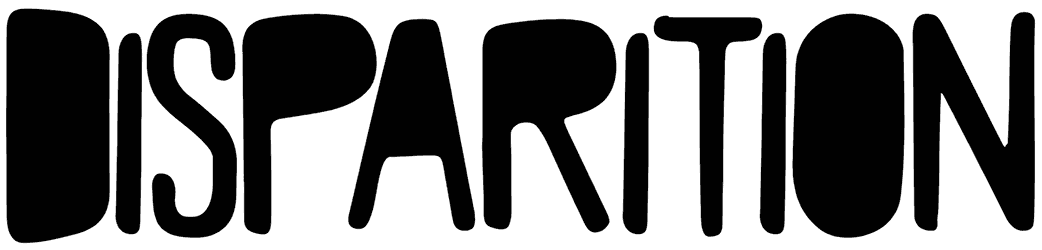
Disparition Font
Disparition is a perfect blend of love and dynamic that comes with oblique characters, thus it creates a childish, grunge, disorder, and playful feeling that helps your graphic content be effective and influence the audi…
Disparition is a perfect blend of love and dynamic that comes with oblique characters, thus it creates a childish, grunge, disorder, and playful feeling that helps your graphic content be effective and influence the audience in the shortest possible time. This all-caps cartoon font can be included in posters, educational brochures, flyers, and illustrations.